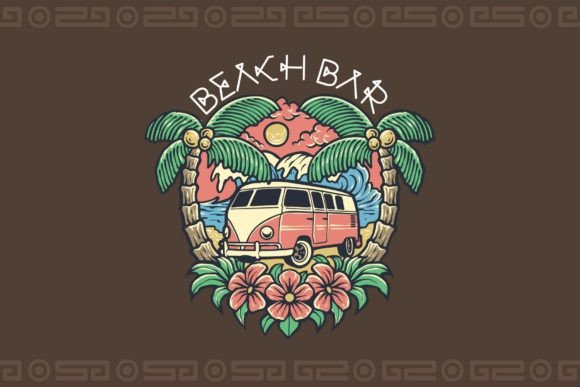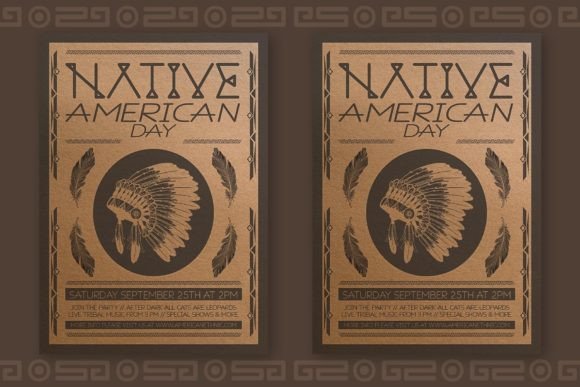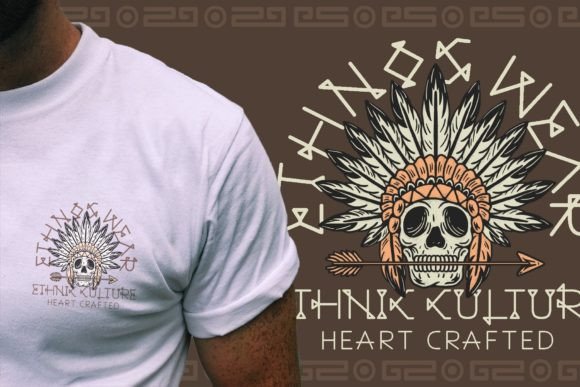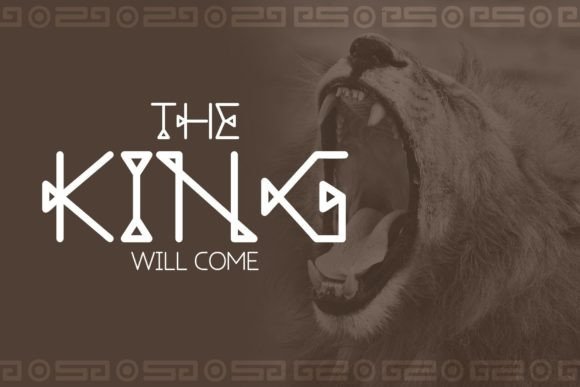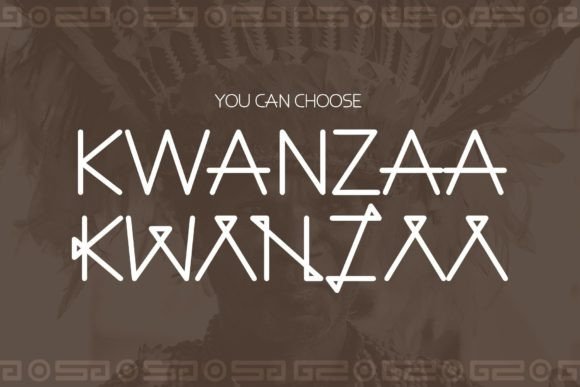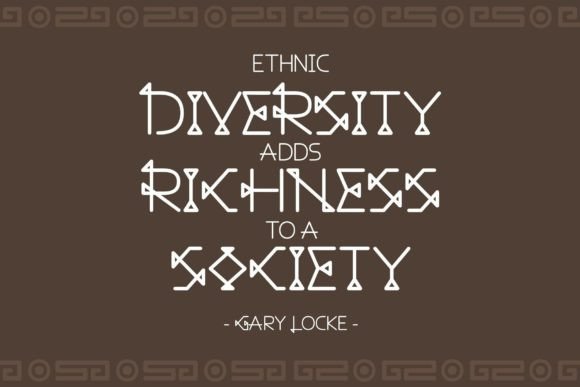
Introduction to Holdeim Font Font
Fonts play a crucial role in design, and the Holdeim Font font is a typeface that brings both character and versatility to any project. Whether you’re working on a branding project, a website, or a print design, the Holdeim Font font offers a unique style that can elevate your work.
Holdeim is a unique and interesting display font.
Its tribal character makes it suitable for a large variety of special projects that need an extra ethnic touch .
The Holdeim Font font is more than just a typeface – it’s a design tool that helps you communicate your message with style and clarity. Its unique character set and versatile design make it suitable for a wide range of applications, from elegant invitations to bold headlines.
With its carefully crafted letterforms and balanced proportions, the Holdeim Font font ensures readability and visual appeal across all mediums.
The Holdeim Font font stands out with its unique design, exceptional readability, and versatility across various design applications.